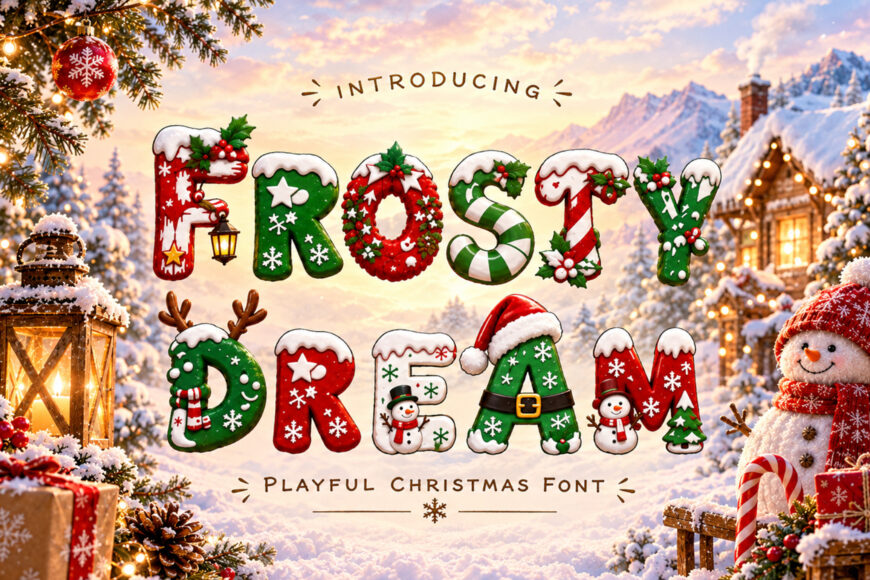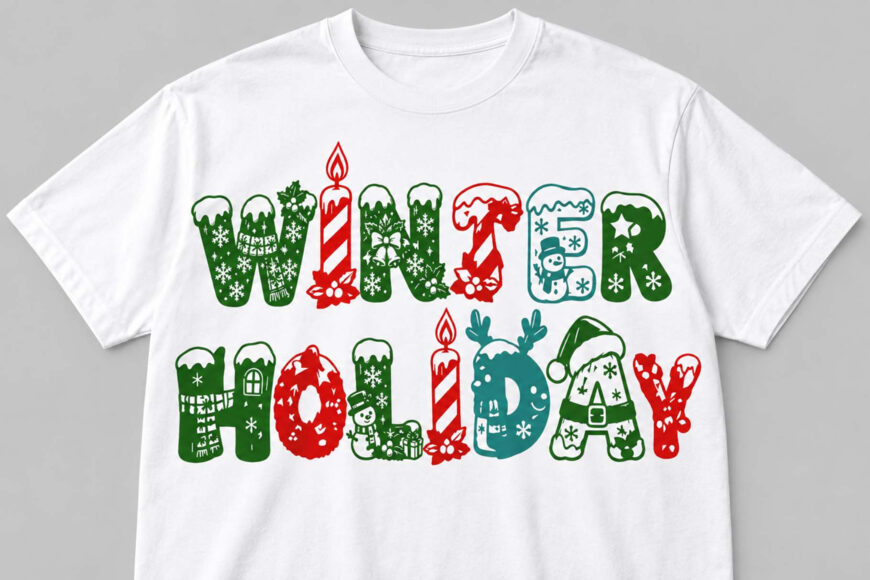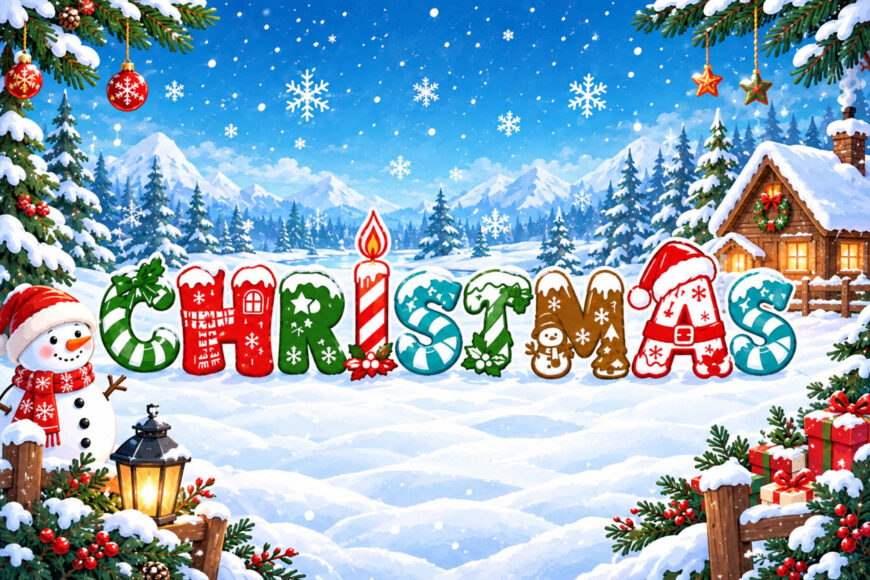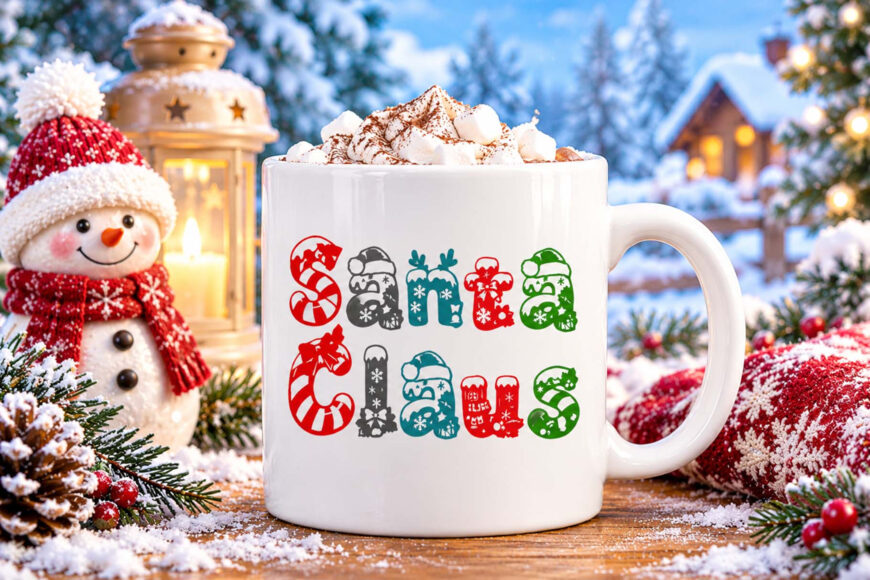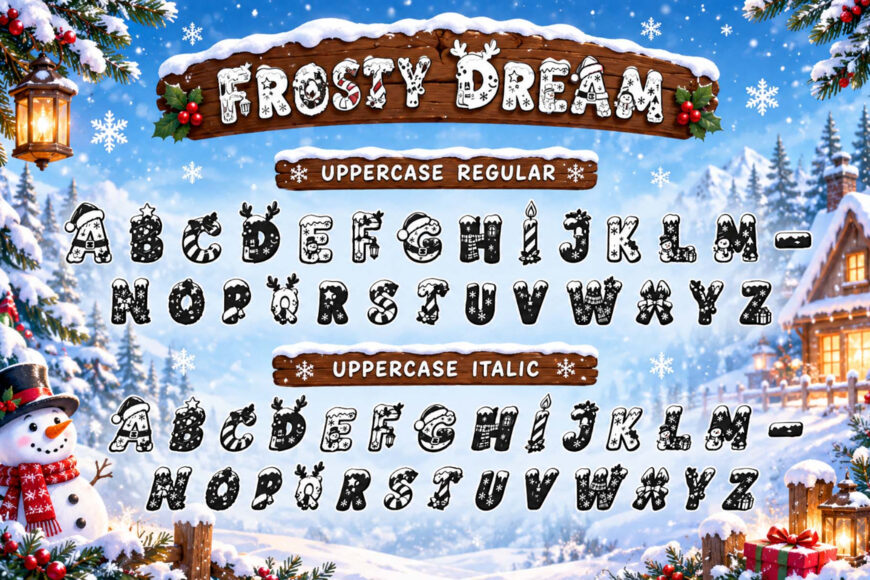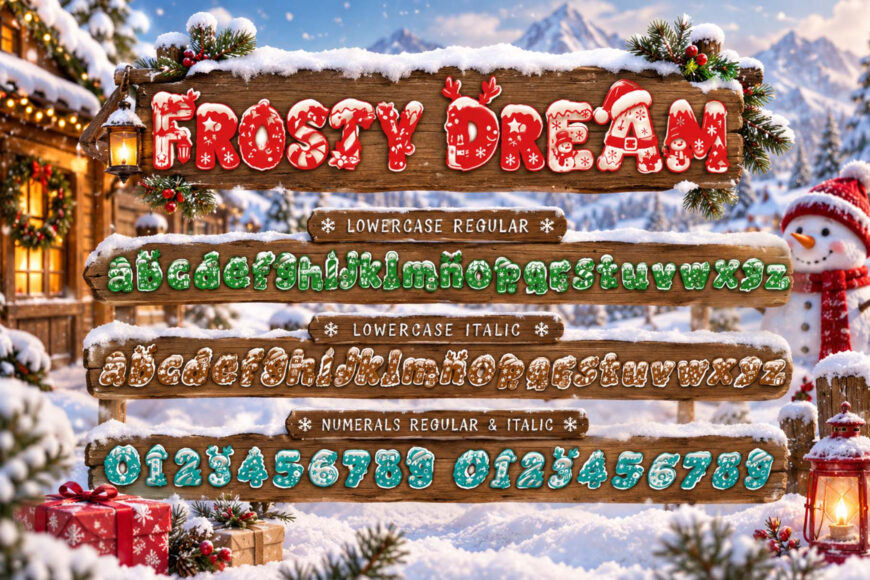
Bring the magic of Christmas to your creative projects with Frosty Dream, a fun and playful Christmas display font filled with festive charm. Featuring chunky, cheerful letterforms decorated with snow, candy canes, holly leaves, berries, snowflakes, Santa hats, and adorable winter details, this font creates a joyful holiday atmosphere instantly.